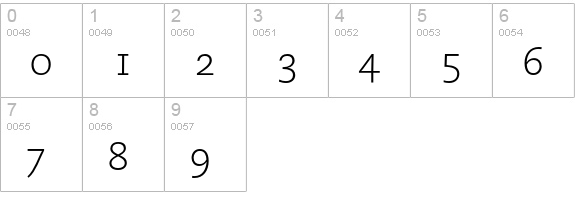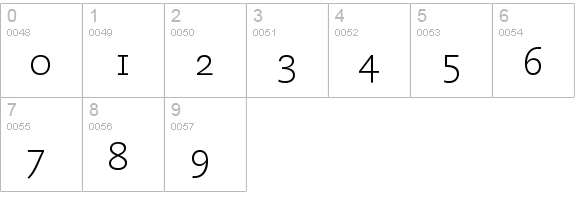
PMN Caecilia 45 Light Small Caps & Oldstyle Figures Font Details
PMN Caecilia 45 Light Small Caps & Oldstyle Figures is a refined, elegant variant in the PMN typeface family \xE2\x80\x94 well suited to elegant body text, refined sub-headings, and luxury branding.
PMN Caecilia 45 Light Small Caps & Oldstyle Figures is a versatile and elegant font that embodies a perfect blend of classic and modern design elements. With its graceful curves and refined details, this font exudes sophistication and timeless appeal. The small caps and oldstyle figures in PMN Caecilia 45 Light add a touch of vintage charm to any project, while still maintaining a contemporary edge. The delicate strokes and precise letterforms create a sense of balance and harmony that is visually pleasing to the eye. Whether you're designing a logo, creating a website, or crafting a beautiful invitation, PMN Caecilia 45 Light Small Caps & Oldstyle Figures is the perfect choice. Its versatility allows it to be used in a wide range of applications, making it a valuable asset for designers and creatives alike. The best part? PMN Caecilia 45 Light Small Caps & Oldstyle Figures is freely available to download at FontsMarket.com. This means that you can access this exquisite font without any cost, making it an excellent option for those working on a tight budget or simply looking for high-quality typography without breaking the bank. So why wait? Download PMN Caecilia 45 Light Small Caps & Oldstyle Figures today and elevate your design projects to new heights. With its timeless elegance and free availability, this font is a must-have for any designer's toolkit.